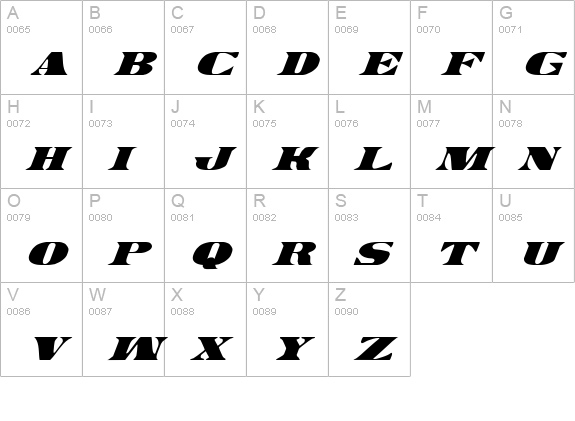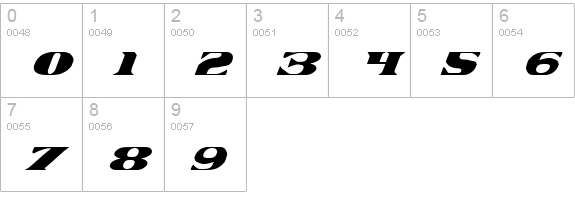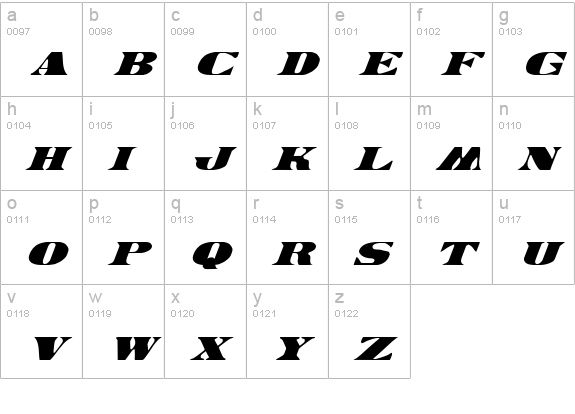
Legal Tender Italic Font Details
Legal Tender Italic is a distinctive, italic variant in the Legal typeface family \xE2\x80\x94 well suited to design and typography projects.
Introducing Legal Tender Italic font, a captivating typeface that effortlessly combines elegance and professionalism. With its sleek and refined strokes, this font exudes a sense of sophistication that is perfect for legal documents, financial reports, and corporate branding. Designed with meticulous attention to detail, Legal Tender Italic font offers a unique and distinctive look that is sure to leave a lasting impression. Its slanted and italicized form adds a touch of dynamism, making it stand out from the crowd while maintaining a sense of professionalism. Featuring a wide range of characters and ligatures, Legal Tender Italic font ensures seamless readability and legibility across various projects. From headlines to body text, this font adapts effortlessly, making it an excellent choice for both print and digital mediums. One of the most remarkable aspects of Legal Tender Italic font is that it is freely available to download at FontsMarket.com. This means that you can easily access this exceptional font without any hassle. Whether you are a designer, a writer, or a business professional, this font provides you with a valuable asset, enhancing the visual appeal of your projects without breaking the bank. With Legal Tender Italic font, your designs will exude professionalism and sophistication, leaving a lasting impression on your audience. Don't miss out on the opportunity to elevate your typography game - download Legal Tender Italic font for free at FontsMarket.com and unlock a world of possibilities for your creative endeavors.